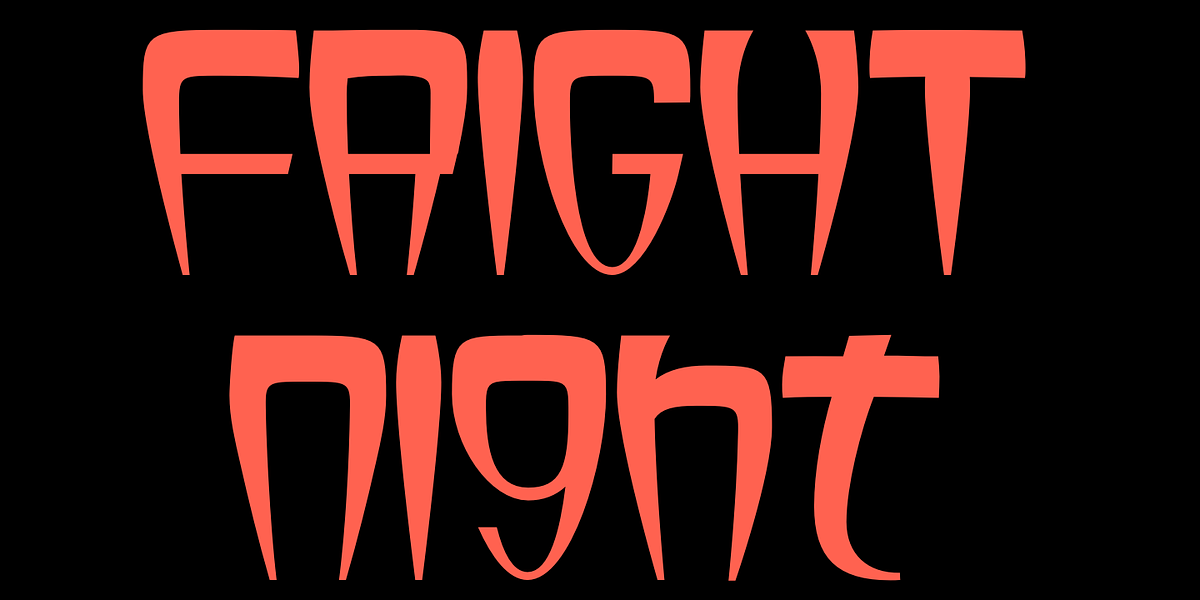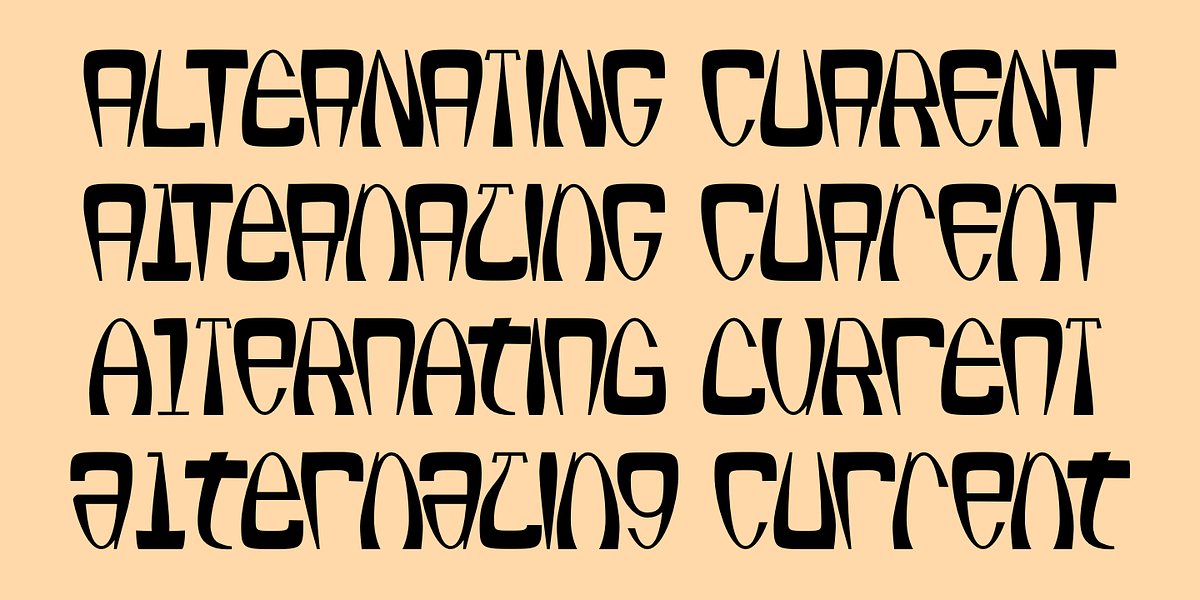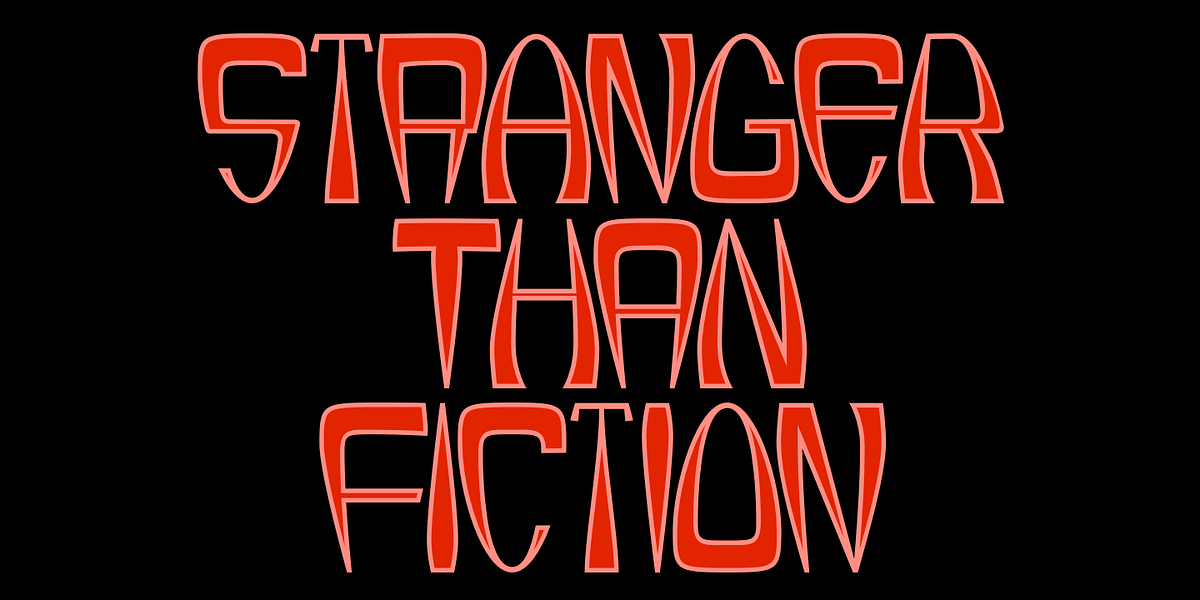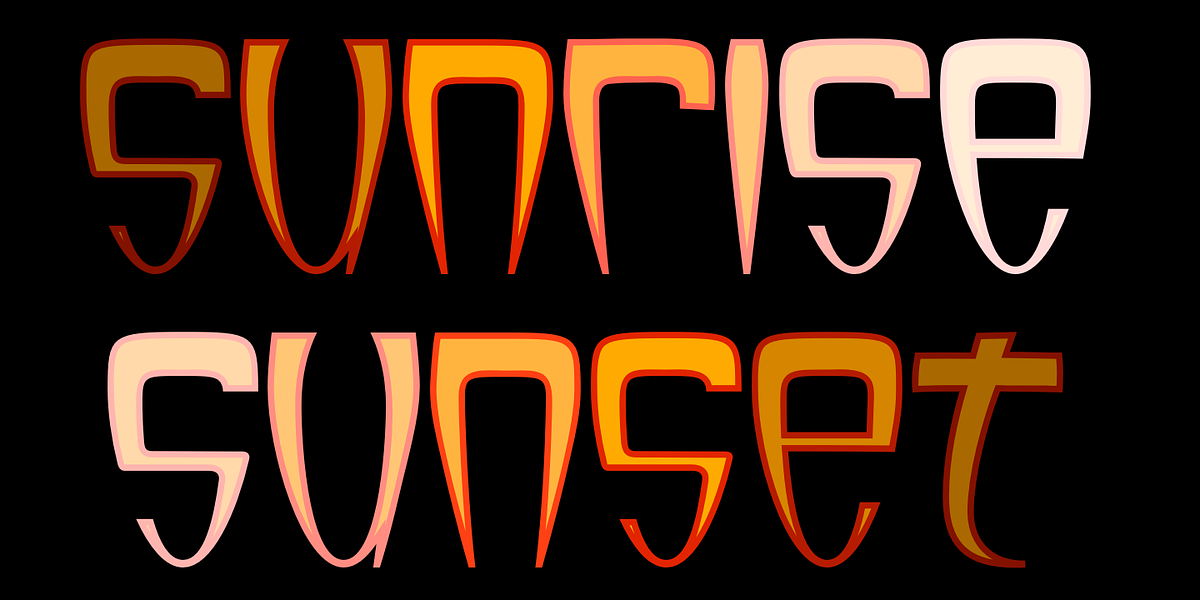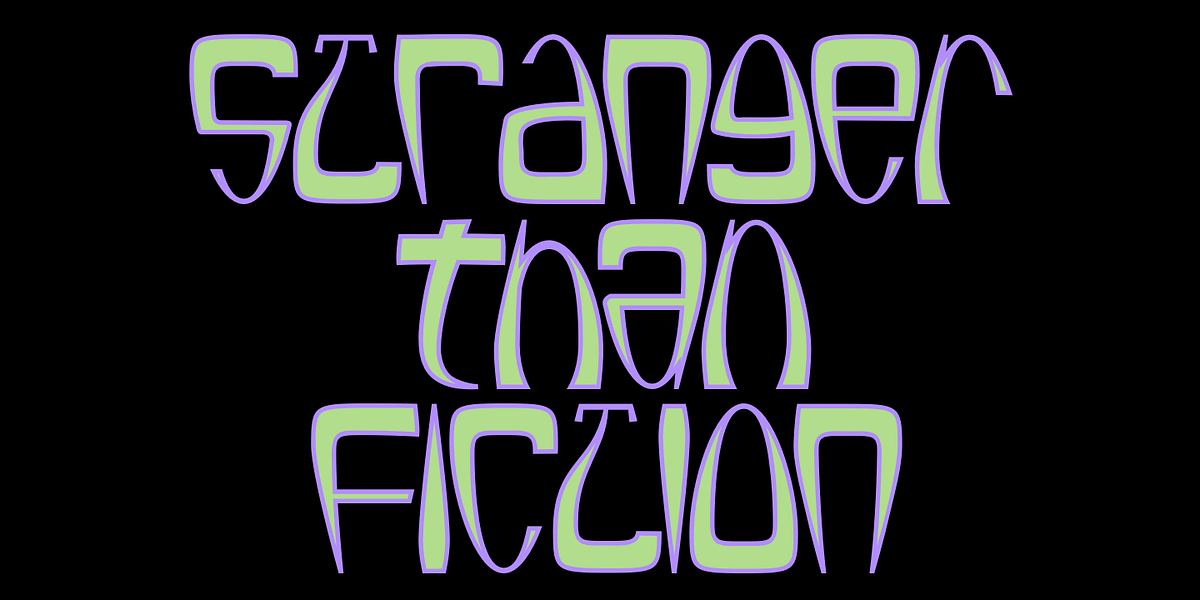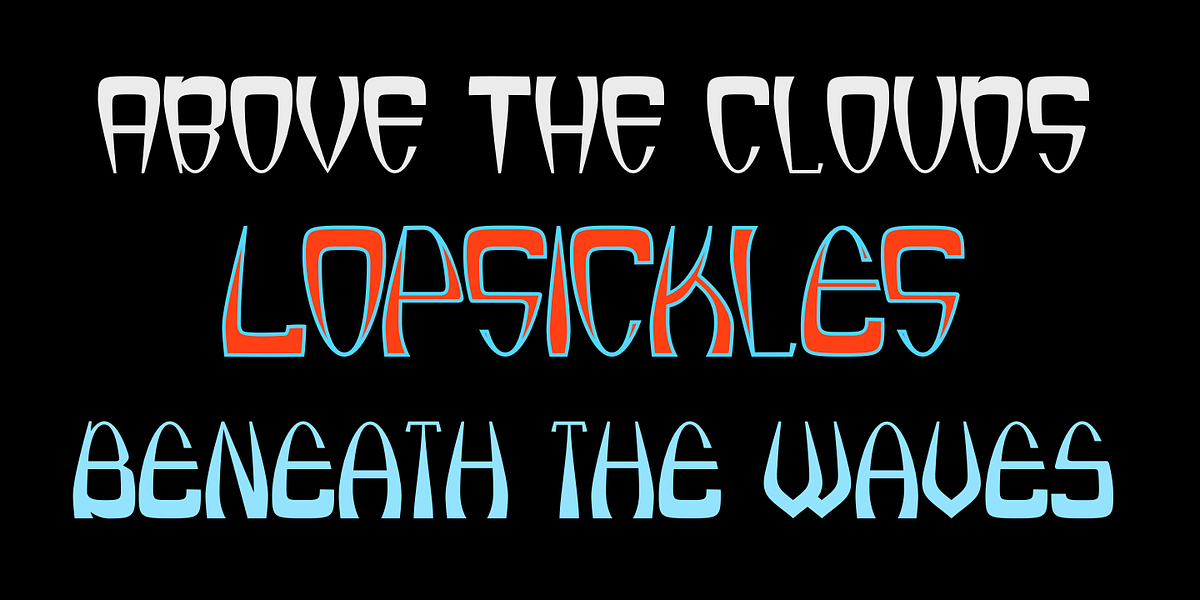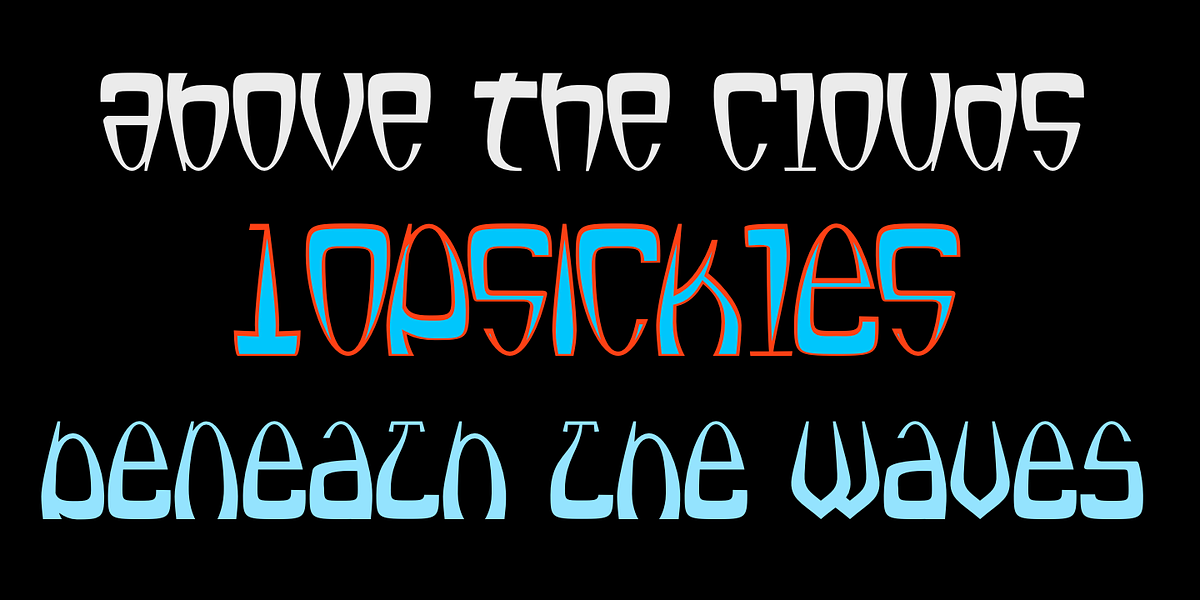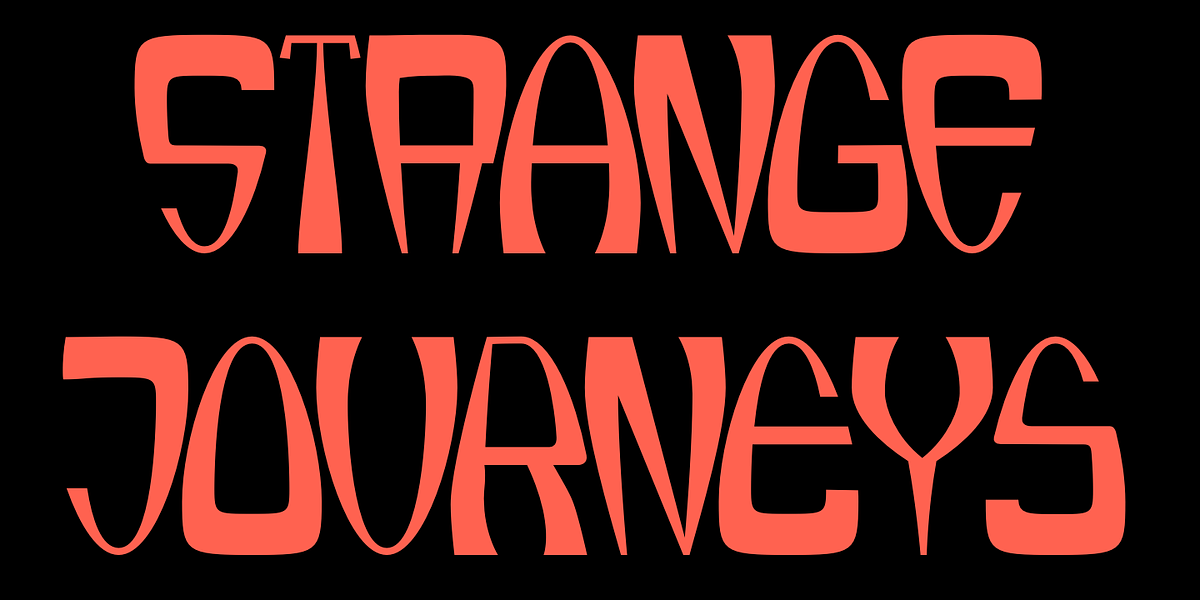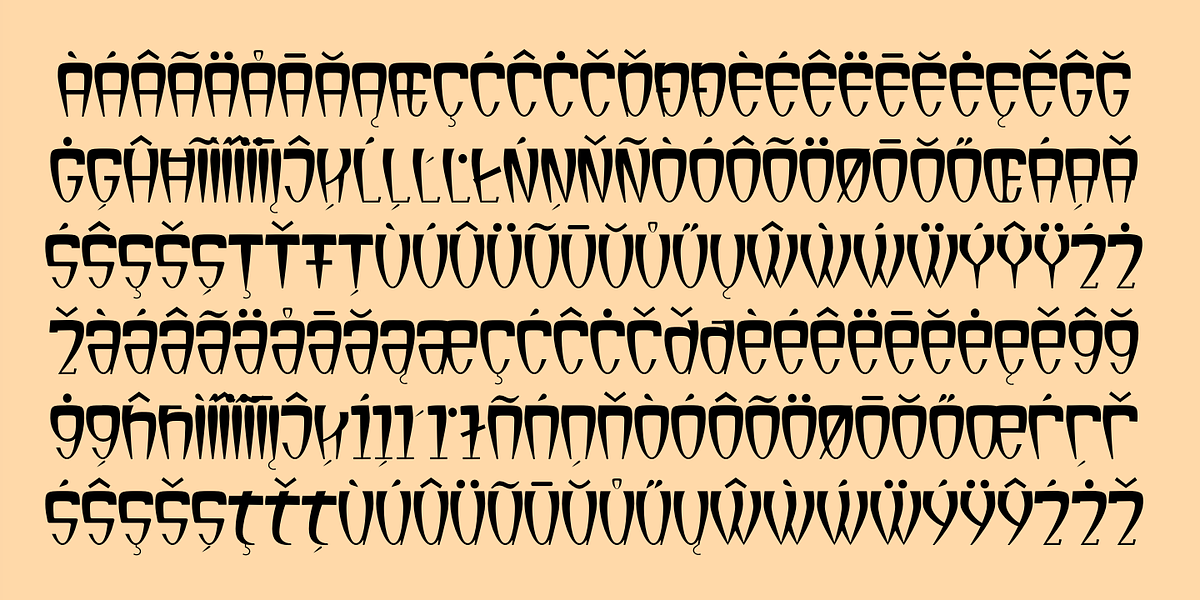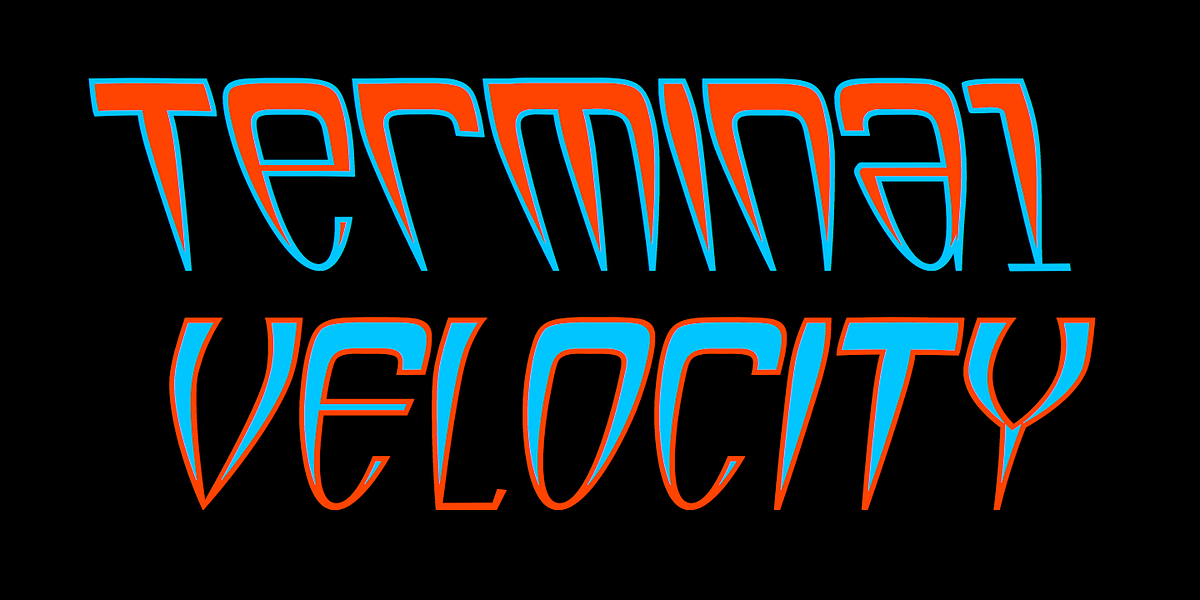
Lopsickles
Lopsickles is a distinctive display font family characterized by its lopsided, distorted ellipses that form the letters. The unique feature of Lopsickles is its alternating character sets: four styles (AB, Ad, Bc, cd) utilize OpenType's Contextual Alternatives feature to switch between top-heavy and bottom-heavy characters, creating a dynamic visual effect. Two additional styles (Ac and Bd) offer fixed top-heavy or bottom-heavy letter sets respectively. The font family also includes inset styles for layering, allowing designers to create hollow letters or add colored interiors. Lopsickles stands out as a playful and unusual choice for display purposes, branding, and editorial design.